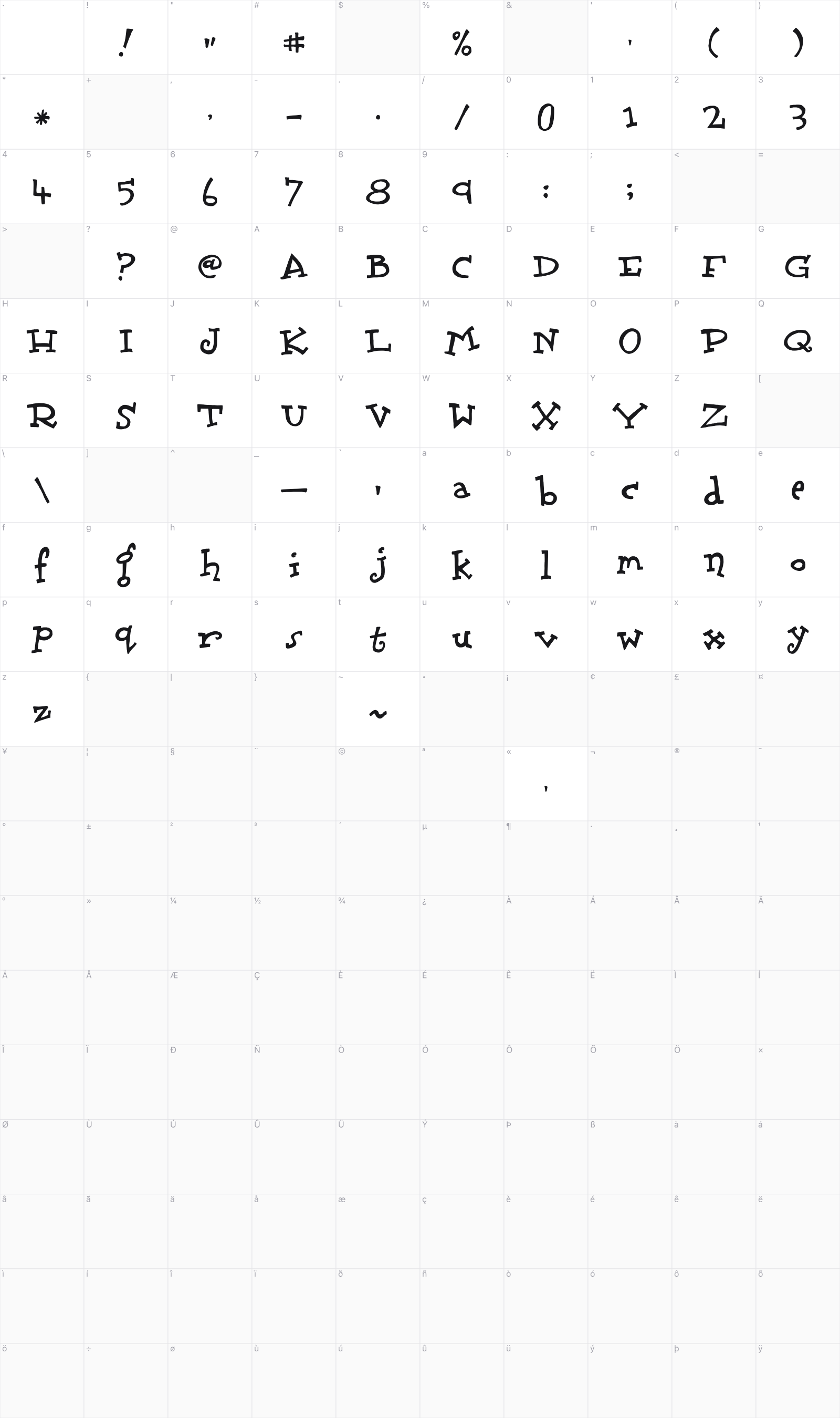
Scrubadoo
by Uddi Uddi
Scrubadoo is a chunky hand-drawn serif with a wobbly, doodled personality and heavy strokes that feel like they were penned by a confident but spontaneous hand. The irregular serifs and shifting weight give it genuine character without veering into illegibility. Good for headlines and packaging where a homemade, unpretentious warmth is the point.